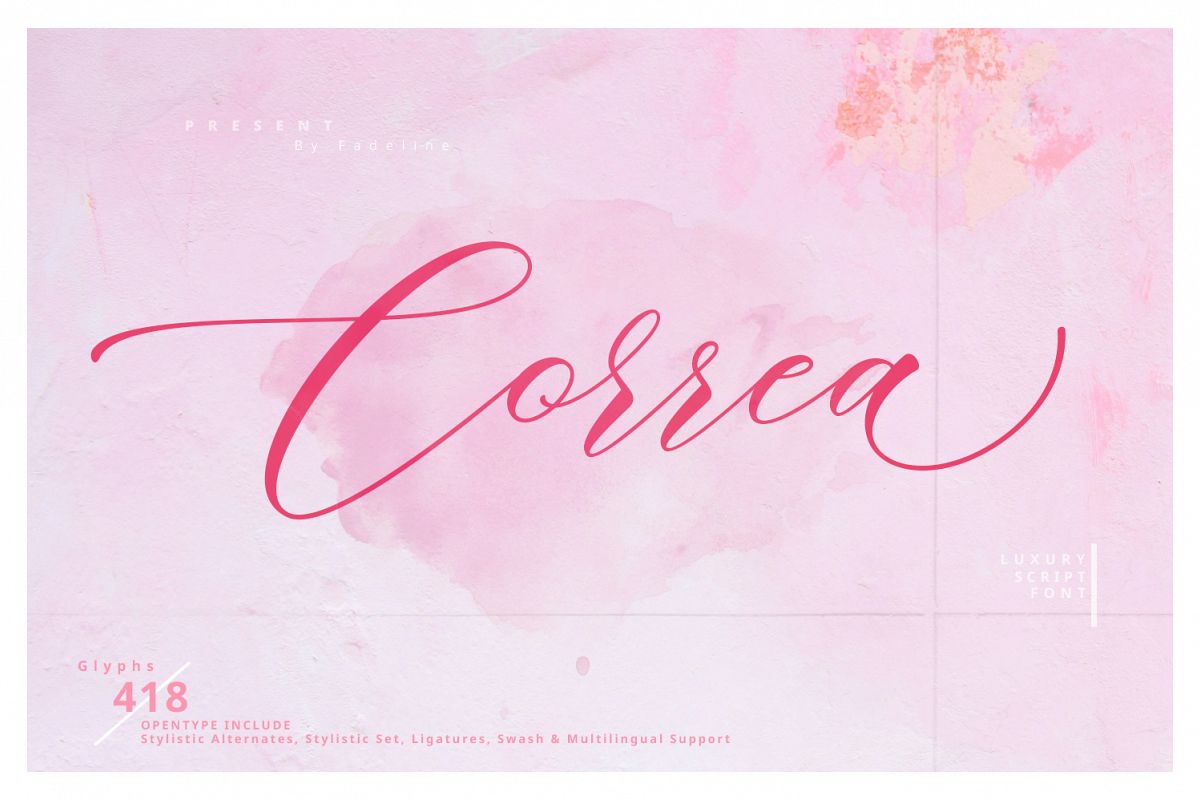
Correa Script
Introduce Correa Script!
This is a modern font script. This font comes with a semibold and italic style, in this font you will find a style of luxury, firm and elegant. Available 418 glyphs in it! so you can get used it freely as you see fit. Please try and hope you enjoy it!
With a style like this, this font will be suitable in use for logo's, branding projects, homeware designs, product packaging, mugs, quotes, posters, shopping bags, logo's, t-shirts, book covers, name card, invitation cards, greeting cards, and all your other lovely projects.
Anda dapat menggunakan font ini untuk pekerjaan Anda dengan sangat mudah. Karena ada banyak fitur di dalamnya. Berisi set lengkap huruf kecil dan besar, tanda baca, angka, font web, dan dukungan multibahasa. Font ini juga mencakup beberapa pengikat dan gaya alternatif Stylistic Set Bagi Anda yang memiliki perangkat lunak yang mampu bekerja OpenType (Corel Draw / Photoshop / Illustrator / InDesign).